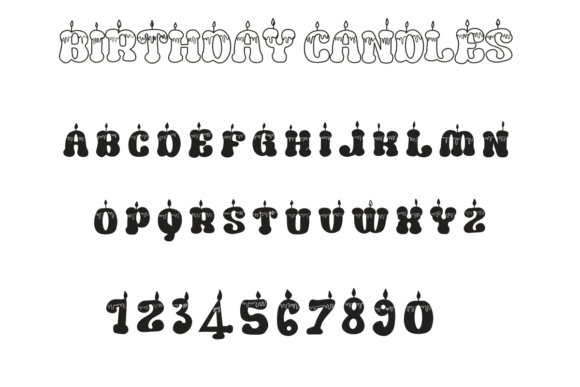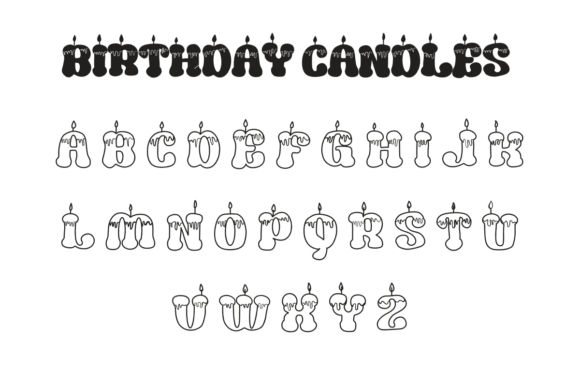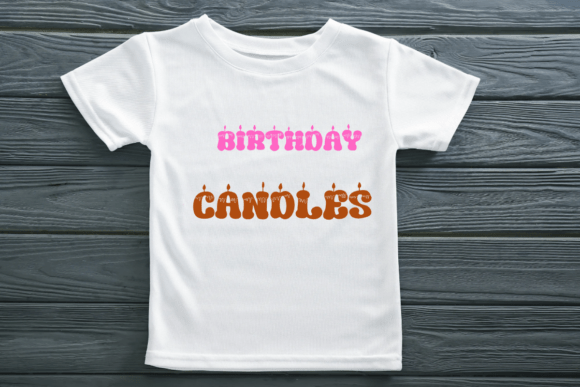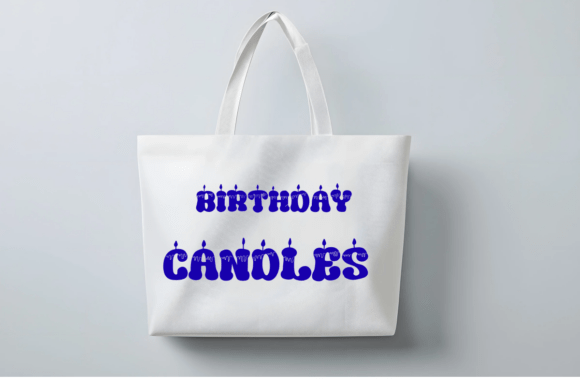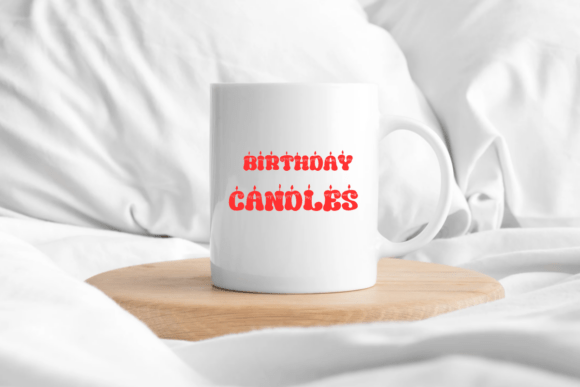
Sparkling Creativity: The Magic of Birthday Candles Font
Who hasn’t felt a rush of excitement when brainstorming ideas for a birthday celebration? The colors, the decorations, the cake – it’s all about creating an unforgettable experience for the birthday boy or girl. As designers, we’re always on the lookout for that special something to make our projects stand out. That’s where Birthday Candles Font comes in – a delightful and festive font that adds a touch of whimsy to any design.
With its playful candle tops and melting wax details, this font is perfect for birthday cards, party invitations, and kids’ merchandise. Its versatility and charm make it a valuable addition to any designer’s toolkit, bringing a joyful spark to even the most mundane projects. Whether you’re a seasoned pro or a design newbie, Birthday Candles Font is sure to inspire your creativity and add a pinch of magic to your next celebration-themed project.
Birthday Candles Font Key Features
• Unique Characteristics: The Birthday Candles Font features a unique, hand-drawn design with intricate details and textures, giving it a warm and inviting feel.
• Style and Versatility: This font is perfect for creating a celebratory atmosphere, with a range of styles that can be used for birthday invitations, party decorations, and other festive designs.
Birthday Candles Font Review
Overall, I found the Birthday Candles Font to be a unique and eye-catching choice for designs related to celebrations and parties. ✨ Here are some aspects that stood out to me:
• Creativity: The font’s whimsical design, featuring burning candles, is sure to grab attention and add a playful touch to any project.
• Variety: The font comes in several styles, from a standard font to a more decorative version with animated candles, offering flexibility for different design needs.
• Emotional Connection: The birthday candles design can evoke feelings of nostalgia and warmth, making it suitable for designs that require a sentimental touch.
• Limited Legibility: In certain font sizes or styles, the candles can make the text harder to read, especially for smaller or more detailed designs.
• Overuse: The novelty of the font might wear off if overused, so it’s essential to use it thoughtfully and in context.
• Technical Challenges: Animated candles might be difficult to work with, especially for designers without experience in animation or complex graphics.
Overall, I think the Birthday Candles Font is a great choice for specific design projects, but it’s essential to be aware of its limitations and use it thoughtfully to avoid potential issues.
The Birthday Candles font is ideal for creating birthday invitations, party decorations, and social media posts. You can use it to add a festive touch to your designs and make them more engaging and eye-catching.
Experiment with different font sizes and styles to create a visually appealing design. Use the font in combination with other festive elements, such as candles, balloons, and confetti, to create a cohesive and celebratory look.